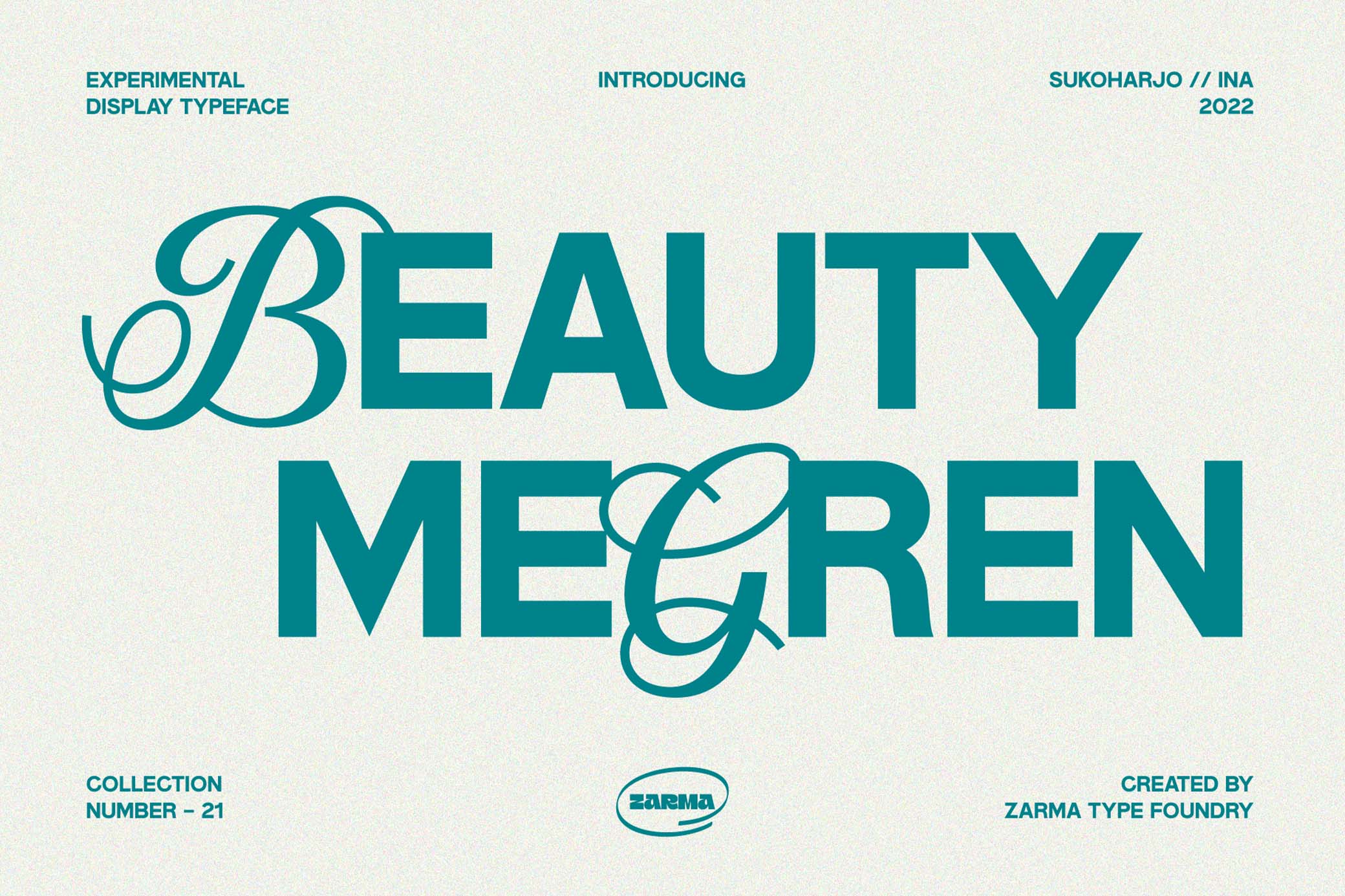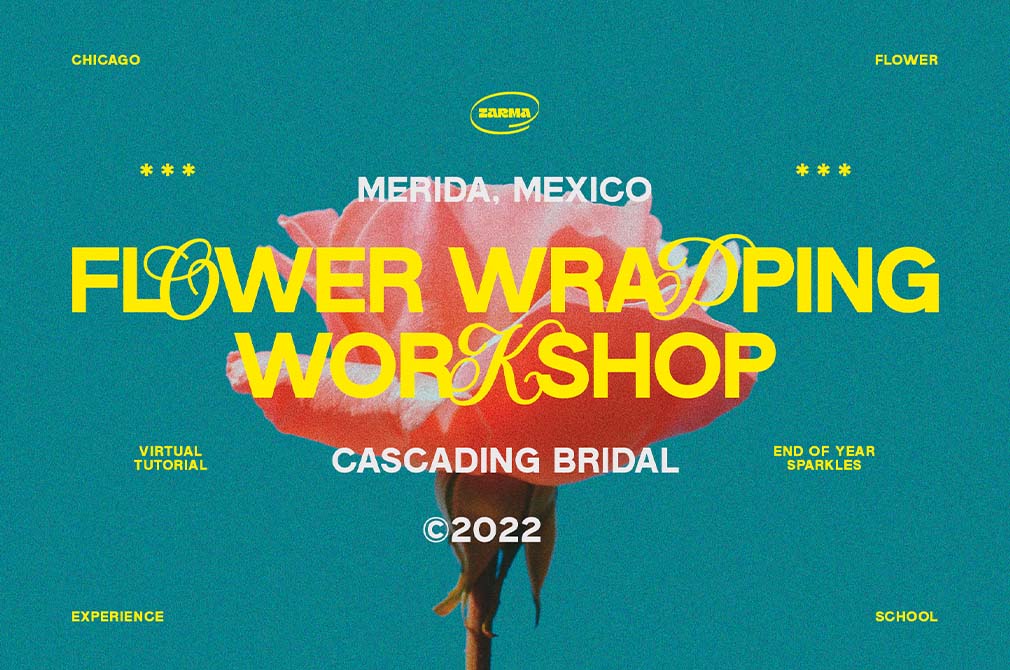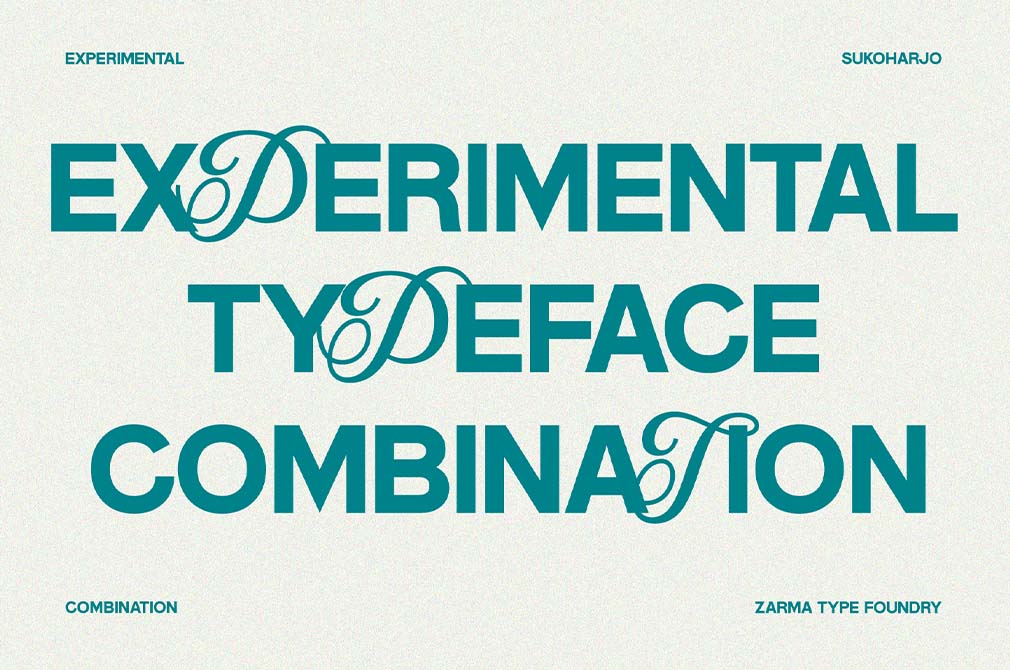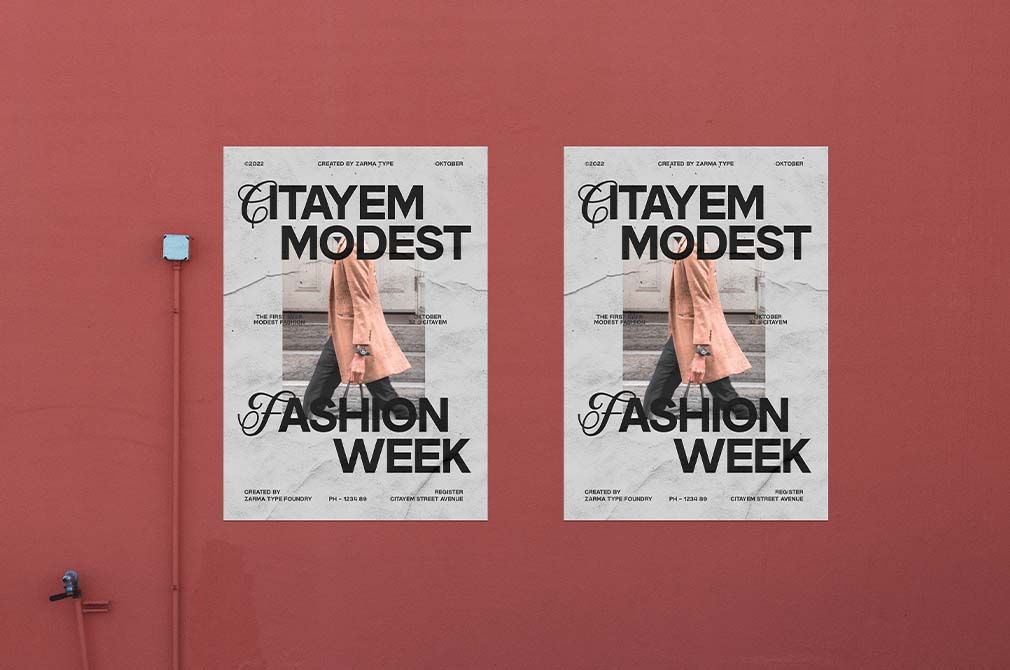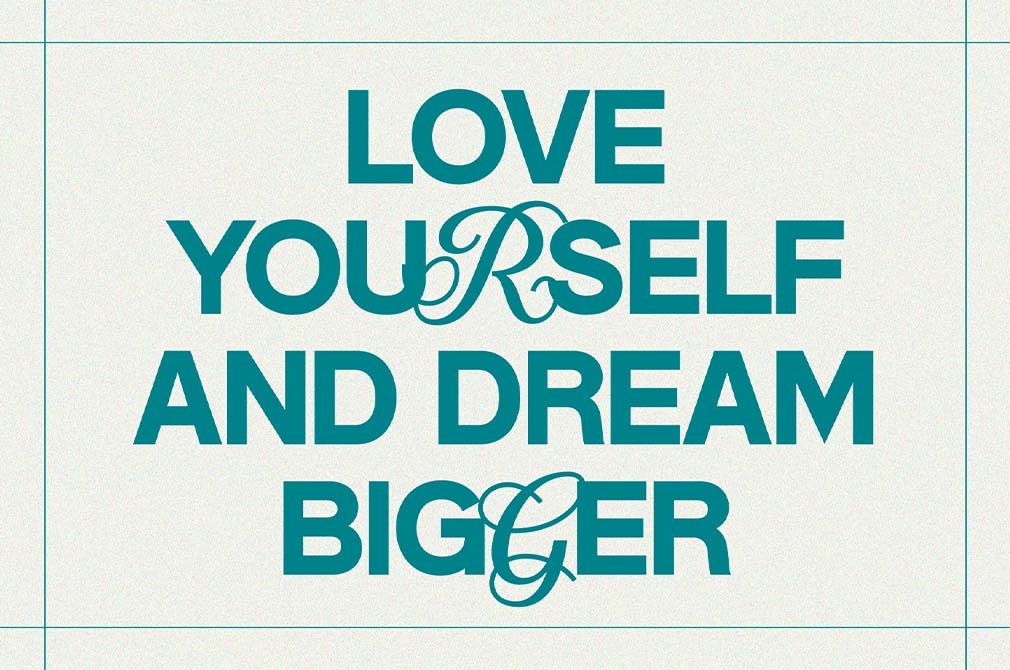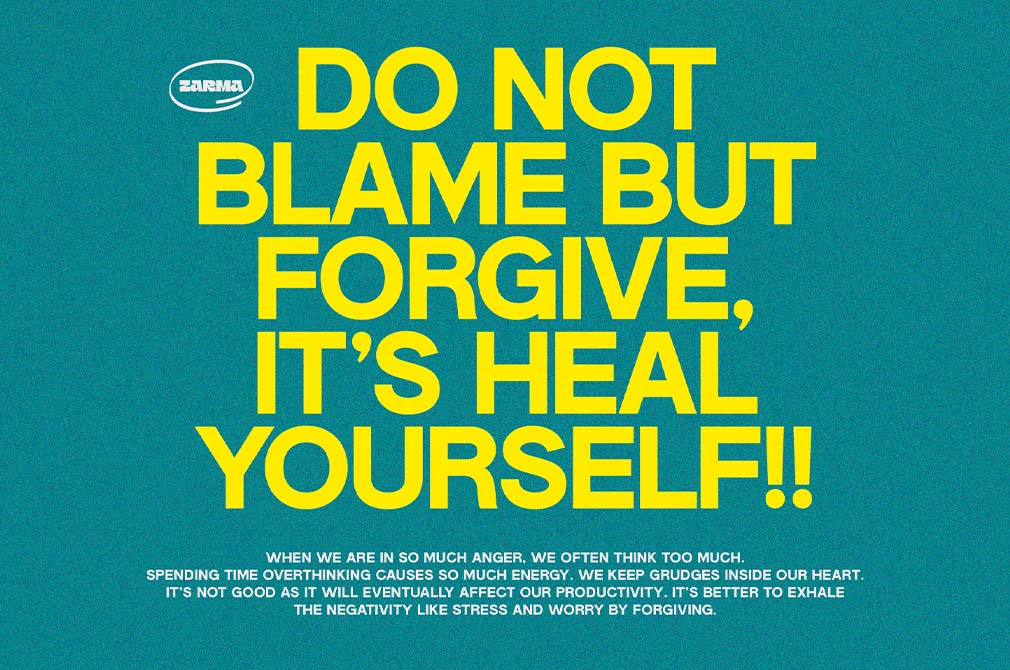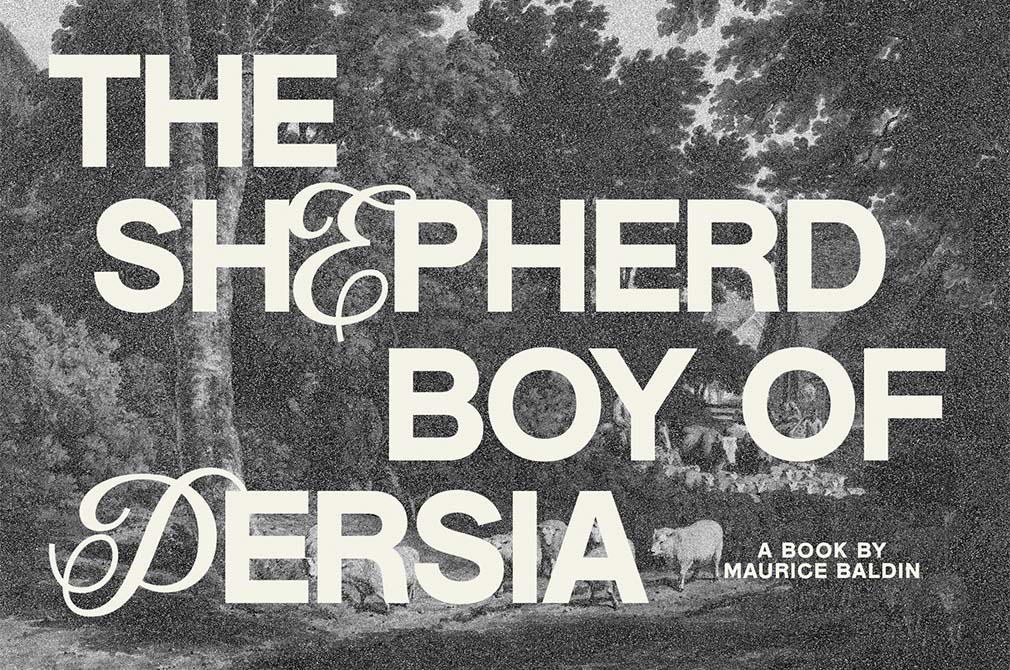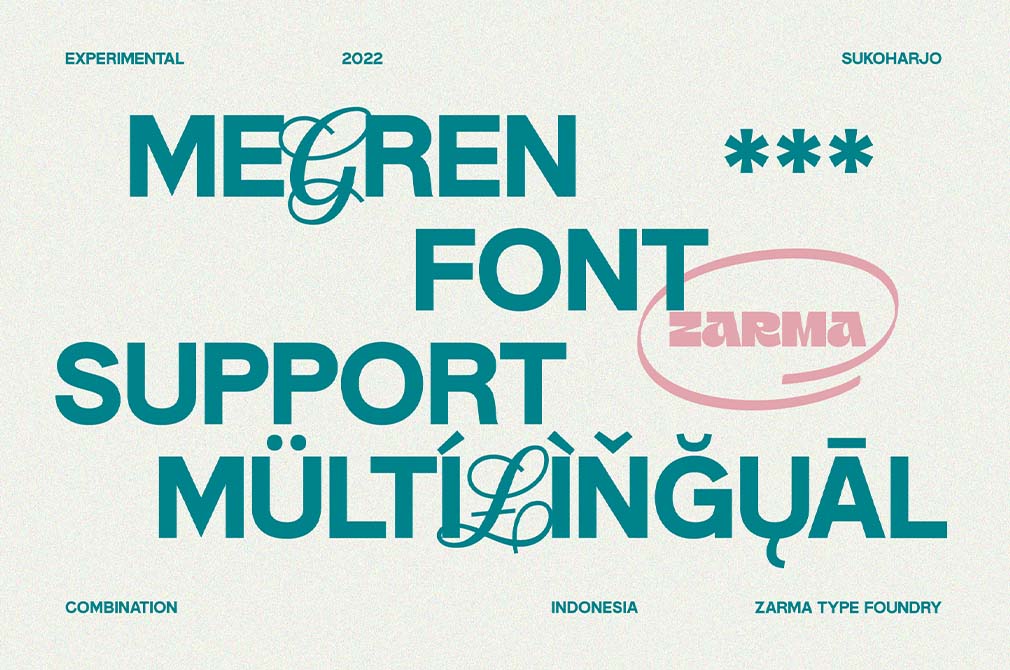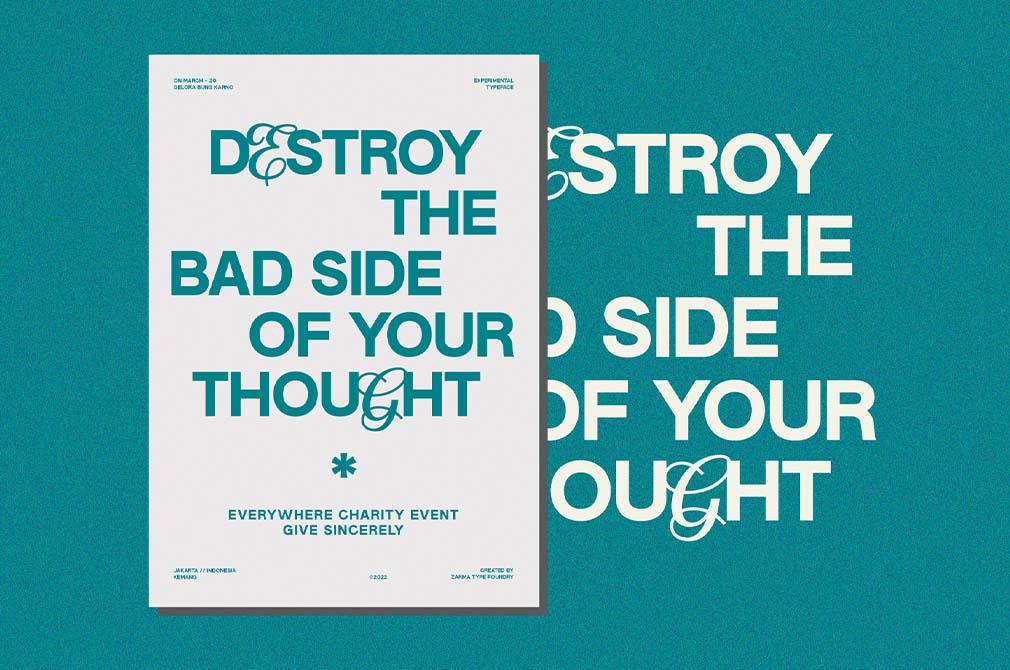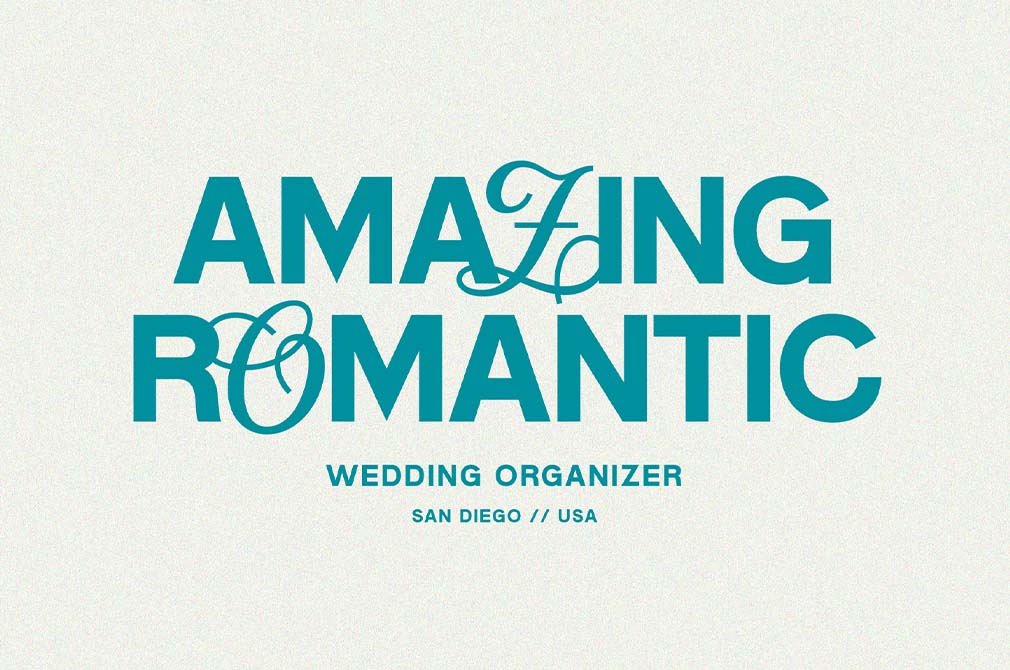
Megren | Combination Font
Ever heard of combination types? Of course, you have 'cause these are the trendiest picks for 2024. We love doing trendy stuff, so we've got you Megren, a font merging copperplate calligraphy with robust sans serif style.
We've seen many combination fonts where pixels, serifs, sans serifs, bubbles, scribbles, and slabs go hand in hand. Some of them were simply weird, but that's definitely not about Megren, which brings the classiest stylistic combo as a single font. The uppercases are traditional copperplate, while the lower uppercases are a clean and distinct sans serif. You'd love them as two fonts paired together but never thought of using both inside a single word, sign, header, or logo, right?Megren also has numbers, punctuation, symbols, and international characters stylized as sans serif elements.